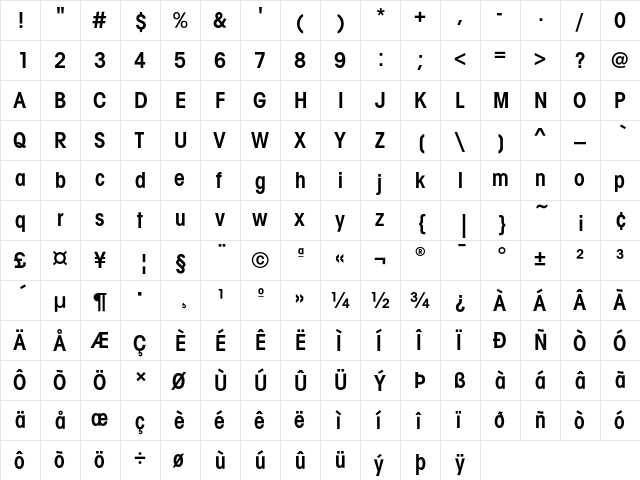
AvantGardEF DemiCond
Design Context for AvantGardEF Typeface
AvantGardEF takes a measured approach to typography — its balanced proportions and neutral character make it a reliable workhorse for both digital and print work. The condensed width makes it efficient for tight spaces without sacrificing legibility.